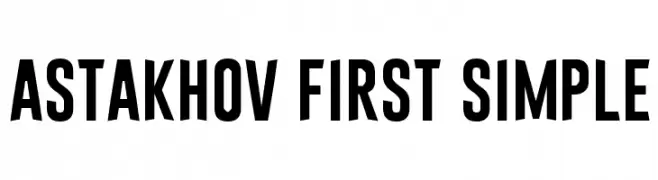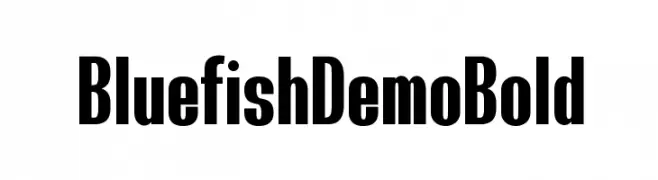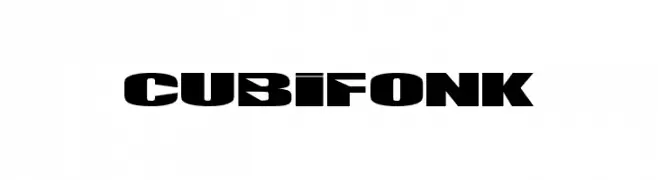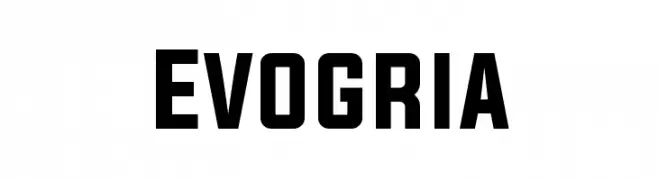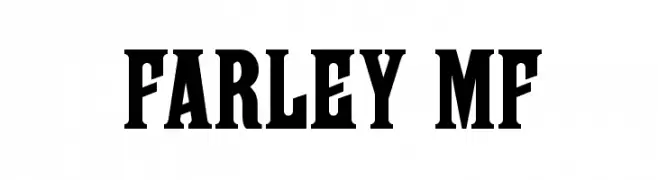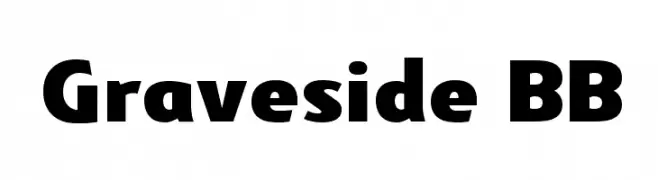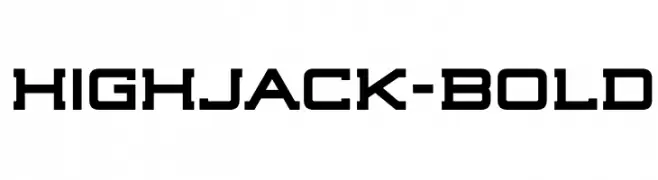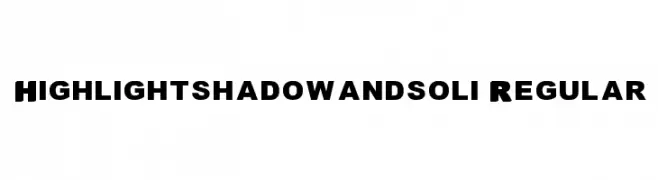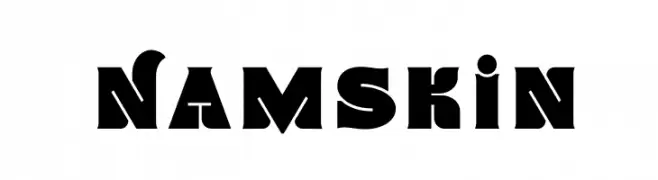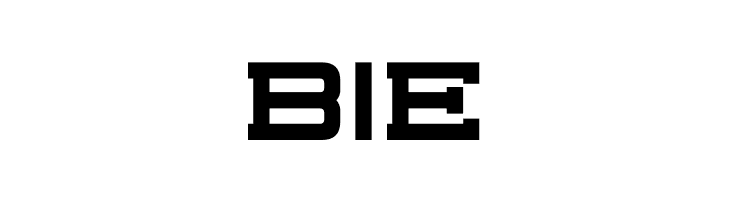
A bold, impactful font with strong, consistent strokes and minimal contrast.
A bold, modern font with geometric shapes and strong visual impact.
A bold, geometric font with strong, uniform strokes and a modern aesthetic.
A bold, modern font with strong, uniform strokes.
A bold, geometric font with a strong, modern aesthetic.
A bold, impactful font with thick strokes and strong presence.
A bold, modern font with strong geometric influences and uniform strokes.
A bold, geometric font with strong, industrial characteristics.
A bold, impactful font with clean lines and strong presence.